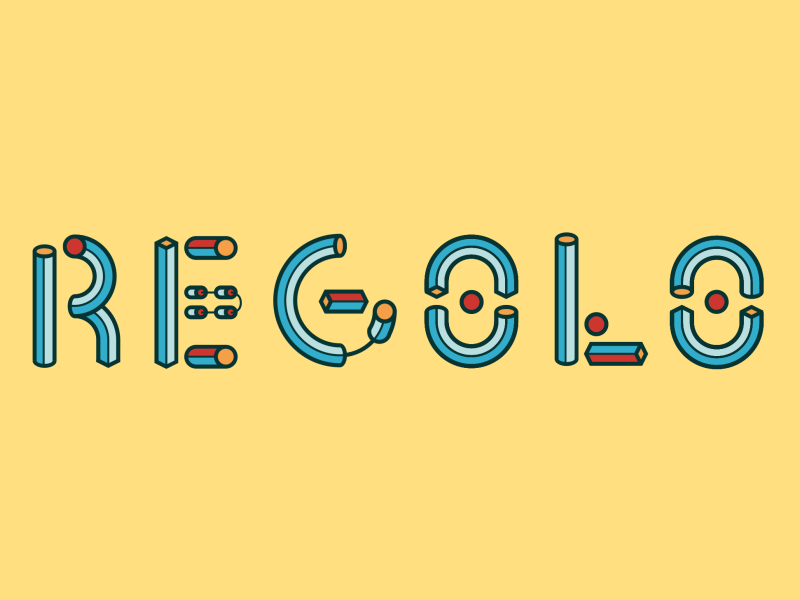
REGOLO Typeface
Regolo is a fun display typeface inspired by Cuisenaire Rods (teaching aids that provide a hands-on way to explore and learn mathematic concepts). Regolo is a playful typeface that is well suited for 2d animations and display settings such as titles or posters.